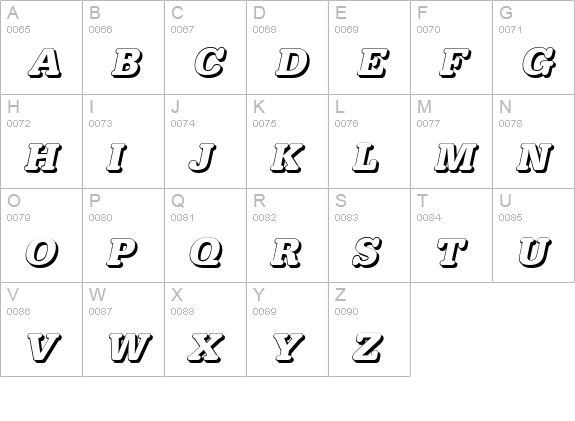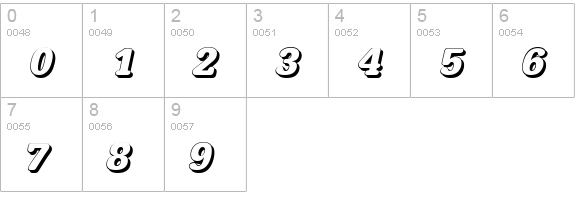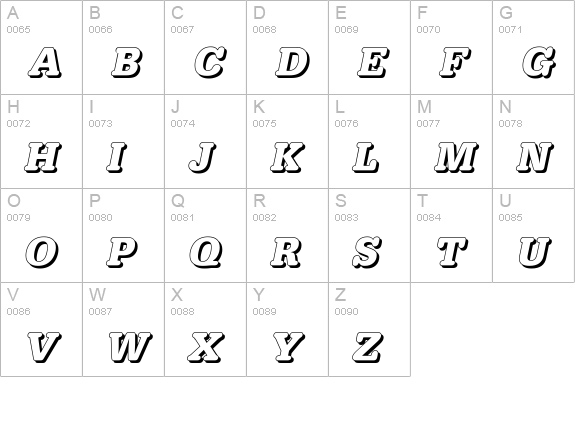
TypewriterSh-BoldItalic Font Details
Introducing TypewriterSh-BoldItalic font - a bold and elegant typeface that exudes sophistication and charm. This unique font combines the classic look of a typewriter with a modern twist, making it perfect for various design projects. The bold italic style adds a touch of flair and personality to any text, making it stand out from the crowd. What sets TypewriterSh-BoldItalic font apart is not only its striking appearance but also the fact that it is available for free download at FontsMarket.com. This means you can easily access and use this stylish font for your personal or commercial projects without any cost. Whether you're designing a poster, creating a logo, or working on a branding project, TypewriterSh-BoldItalic font is sure to make a lasting impression. Don't miss out on the opportunity to elevate your designs with the sleek and sophisticated TypewriterSh-BoldItalic font. Download it for free today and add a touch of elegance to your typographic creations.